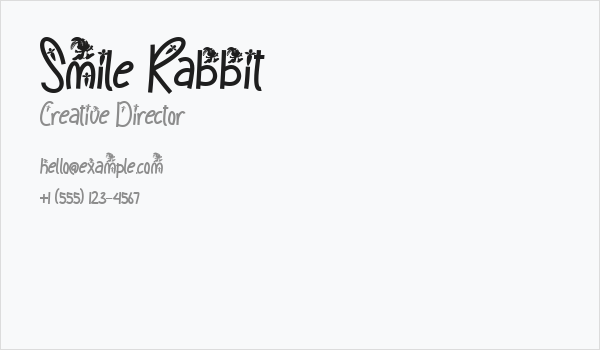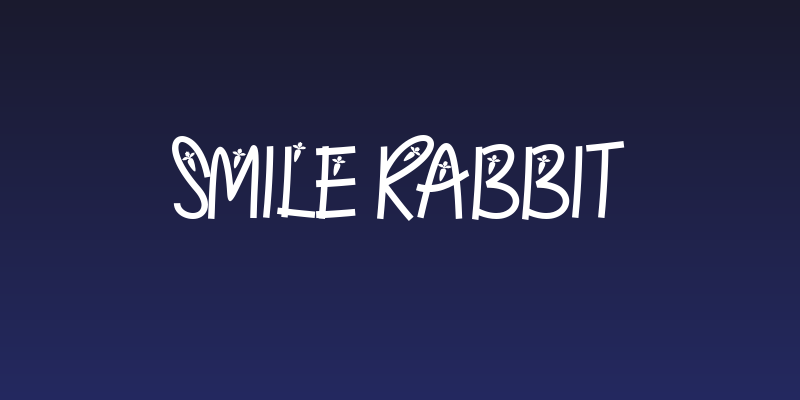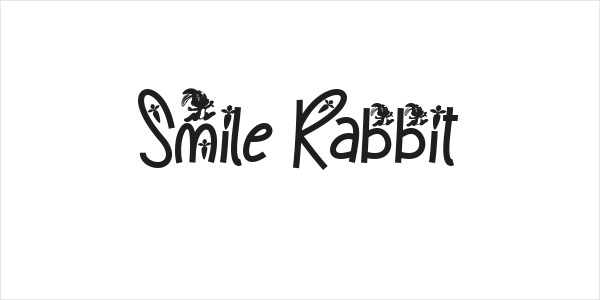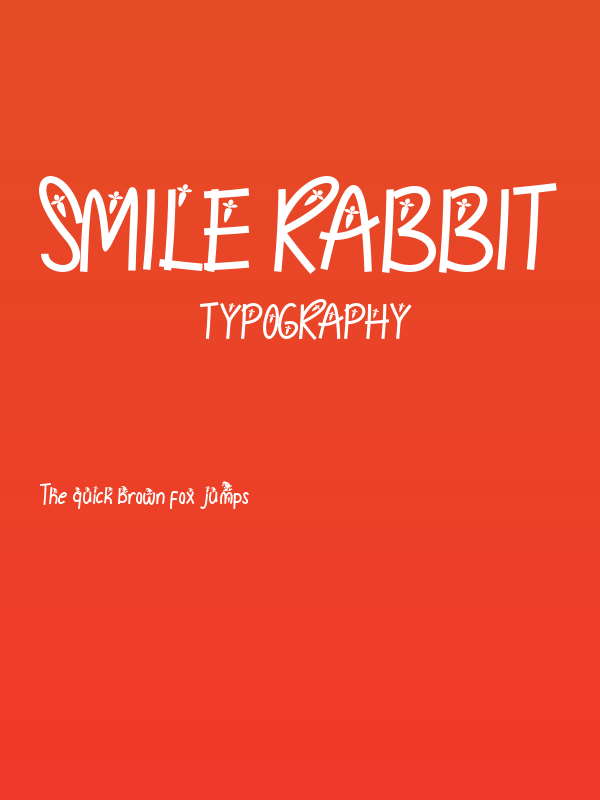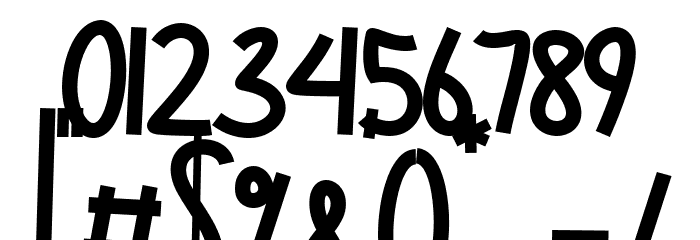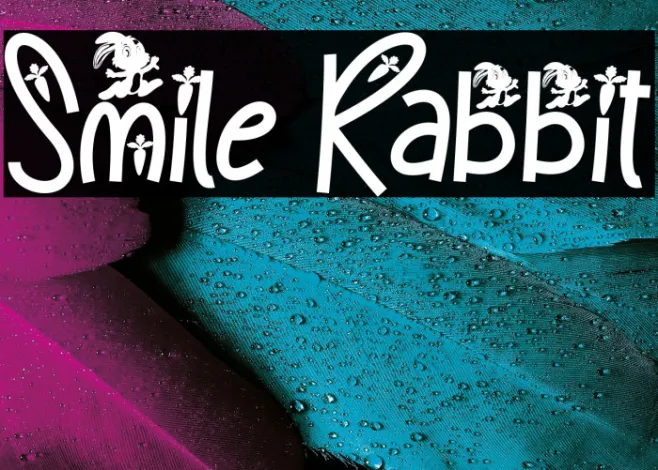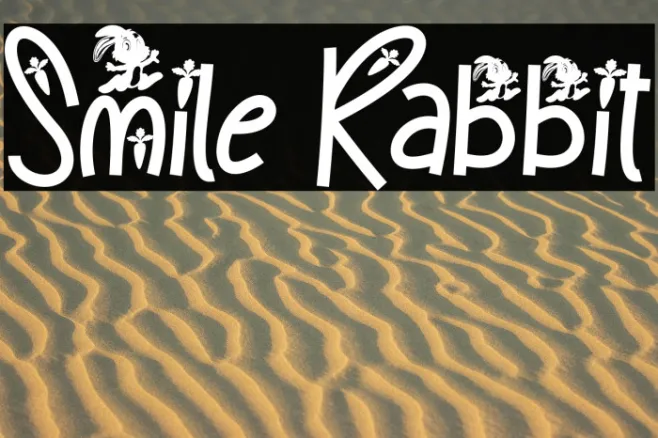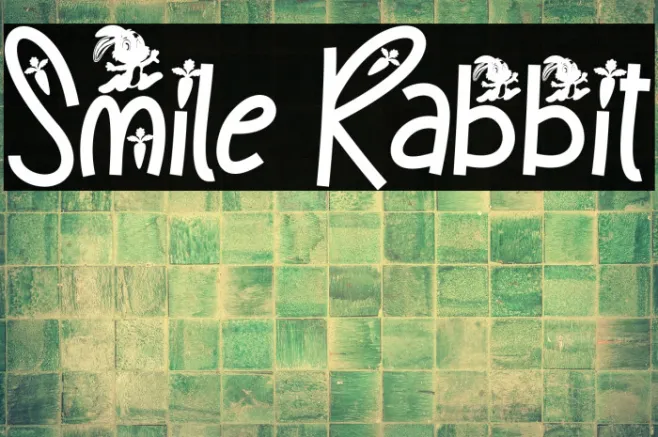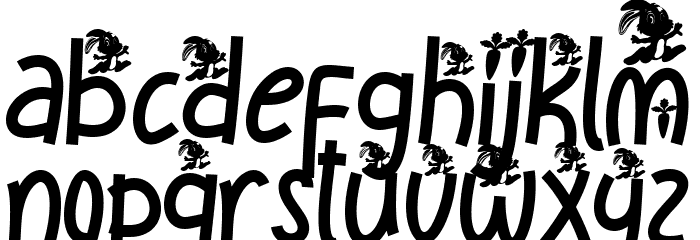
Smile Rabbit Font
Smile Rabbit Description
This playful and whimsical font features a unique design where each character is accompanied by a small rabbit illustration, adding a fun and quirky element to the text. The letters are bold and slightly irregular, giving them a hand-drawn appearance. The uppercase and lowercase letters maintain a consistent style, with rounded edges and a casual, friendly feel. The numbers and special characters follow the same playful theme, making this font ideal for creative projects that require a touch of humor and charm. The overall design is eye-catching and distinctive, perfect for capturing attention in a variety of contexts.
| Overall Style | Whimsical |
| Proposed Projects | Ideal for children's books, playful branding, party invitations, and whimsical posters. |